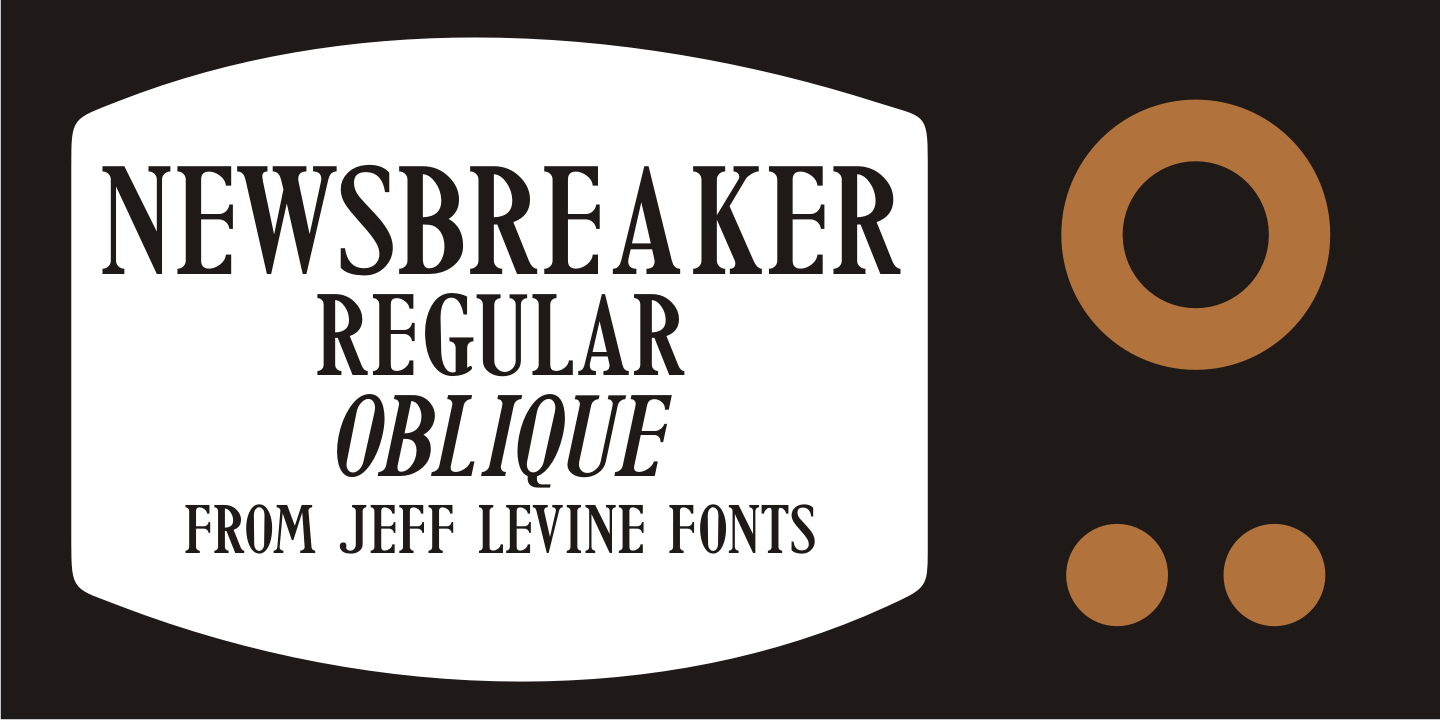
Newsbreaker
Based on scans of some 1906 newspaper headlines detailing the devastation of the San Francisco earthquake, Newsbreaker JNL is a modern take on vintage typography.
With a few letterform characteristics somewhat reminiscent of DeVinne, this typeface was perfect in its day for expressing news headlines… and it holds up just as well today for titling or banner ad copy.
Available in regular and oblique versions.